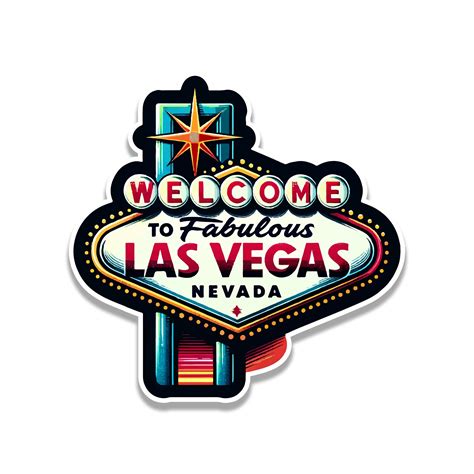
In the vibrant world of graphic design and typography, the Las Vegas Font stands out as a captivating choice that evokes the glamour and excitement of the iconic city. This font is more than just a typeface; it's a symbol of the dazzling lights, the thrilling entertainment, and the unforgettable experiences that Las Vegas offers. Whether you're designing a poster for a nightclub, a logo for a casino, or a promotional material for a Las Vegas-themed event, the Las Vegas Font can add a touch of sophistication and allure to your project.
Understanding the Las Vegas Font
The Las Vegas Font is characterized by its bold, elegant, and slightly retro design. It often features ornate details and a classic serif style that harkens back to the golden age of Hollywood and the heyday of Las Vegas' casinos. The font's design elements, such as the intricate curves and sharp edges, create a visual impact that is both modern and timeless.
One of the key features of the Las Vegas Font is its versatility. It can be used in a variety of contexts, from high-end luxury branding to more casual, retro-inspired designs. The font's ability to adapt to different styles makes it a favorite among designers who want to capture the essence of Las Vegas in their work.
History and Inspiration
The Las Vegas Font draws inspiration from the rich history of Las Vegas itself. The city has long been a hub for entertainment, glamour, and luxury, and its iconic landmarks and neon signs have become synonymous with the American dream. The font's design reflects this heritage, incorporating elements that evoke the city's golden age while remaining relevant in today's design landscape.
The font's origins can be traced back to the mid-20th century, when Las Vegas was at the height of its popularity. During this time, the city's casinos and hotels were known for their opulent designs and extravagant decorations. The Las Vegas Font captures this spirit, with its elegant serifs and bold lines that exude a sense of grandeur and sophistication.
Applications of the Las Vegas Font
The Las Vegas Font is a versatile choice for a wide range of design projects. Here are some of the most common applications:
- Casino and Gaming Industry: The font's elegant and sophisticated design makes it an ideal choice for casino logos, promotional materials, and signage. It can help create a sense of luxury and excitement that is essential for the gaming industry.
- Event Planning: For events with a Las Vegas theme, the font can be used to create invitations, posters, and other promotional materials. Its retro-inspired design adds a touch of nostalgia and glamour to any event.
- Nightlife and Entertainment: Nightclubs, bars, and other entertainment venues can benefit from the font's bold and eye-catching design. It can be used to create logos, menus, and signage that stand out and attract attention.
- Travel and Tourism: The Las Vegas Font is perfect for travel brochures, posters, and other promotional materials that showcase the city's attractions. Its elegant design can help convey the excitement and allure of a Las Vegas vacation.
Design Tips for Using the Las Vegas Font
To make the most of the Las Vegas Font in your design projects, consider the following tips:
- Pairing with Other Fonts: The Las Vegas Font pairs well with a variety of other fonts, depending on the desired effect. For a more modern look, consider pairing it with a sleek, sans-serif font. For a retro-inspired design, a bold, serif font can complement the Las Vegas Font beautifully.
- Color Schemes: Choose a color scheme that complements the font's elegant and sophisticated design. Rich, jewel tones like gold, emerald, and ruby can enhance the font's luxurious feel. For a more modern look, consider using a monochromatic color scheme with shades of black, white, and gray.
- Layout and Spacing: Pay attention to the layout and spacing of your design. The Las Vegas Font's intricate details can be overwhelming if not used judiciously. Ensure there is enough white space around the text to allow it to stand out and be easily readable.
- Consistency: Maintain consistency in your use of the font. Whether you're designing a logo, a poster, or a brochure, ensure that the font is used consistently throughout the project to create a cohesive and professional look.
When using the Las Vegas Font, it's important to consider the context and audience of your design. The font's elegant and sophisticated design may not be suitable for all projects, so choose wisely to ensure that your design effectively communicates your message.
Comparing the Las Vegas Font with Other Fonts
To better understand the unique qualities of the Las Vegas Font, it can be helpful to compare it with other popular fonts. Here is a comparison table:
| Font Name | Style | Use Cases | Unique Features |